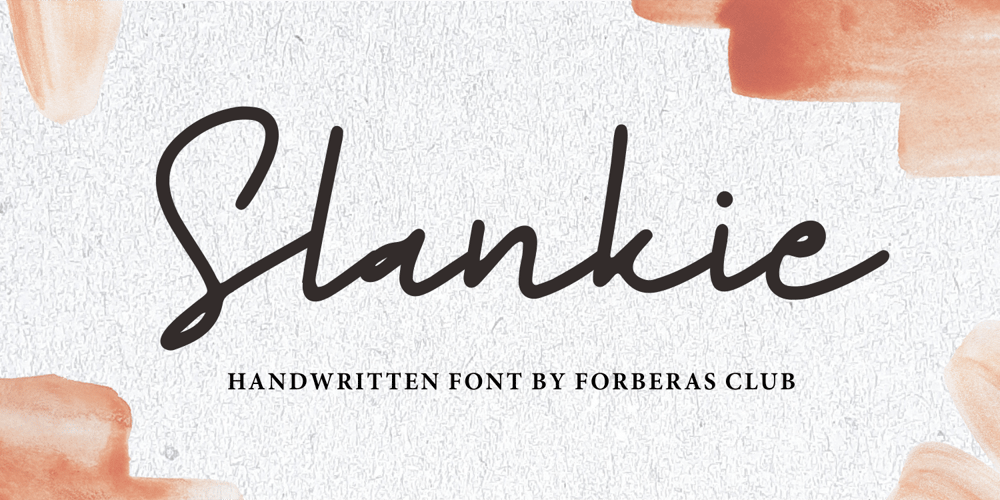
Slankie
Slankie font
Slankie Font Family was designed by ANGGI HERMAWAN and published by Forberas Club. Slankie contains 1 styles and family package options. Slankie is modern handwritten with signature style.Recommended to use this font for signature, farmhouse, wedding party, invitation, memorable moment, love story and many more with special moment.